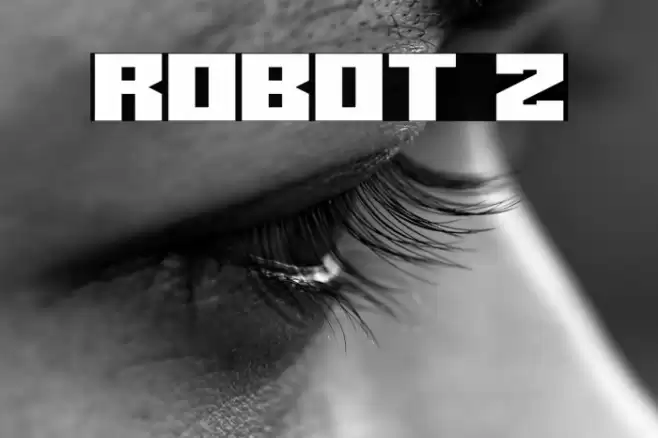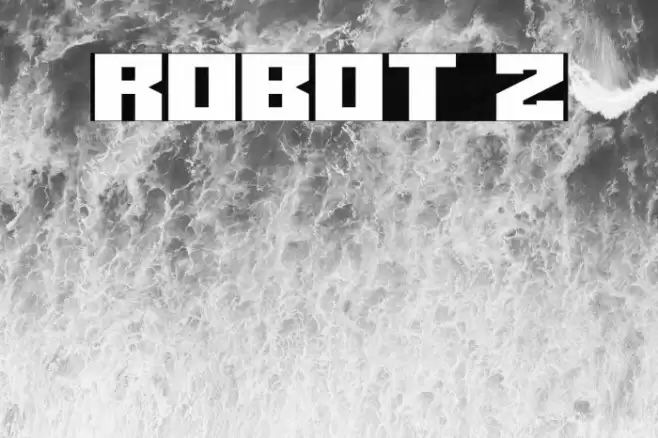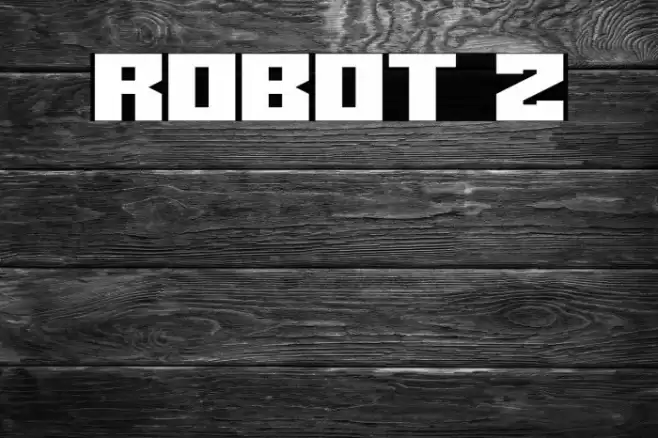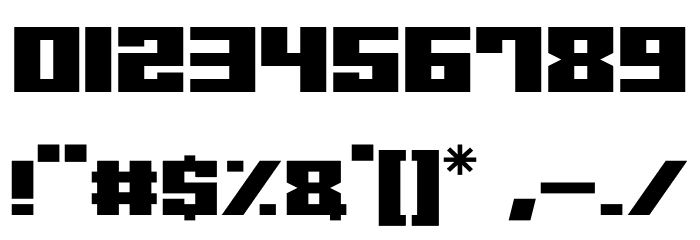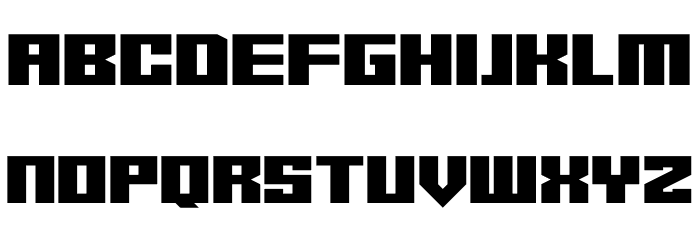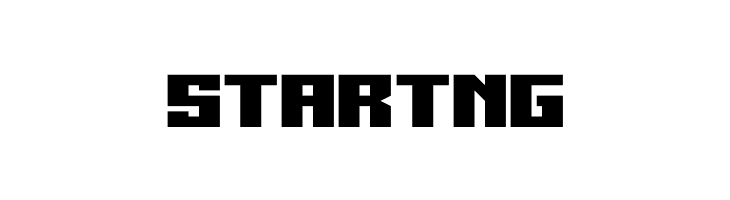
Robot Z Font
Robot Z Description
This font features a bold, geometric design with a futuristic and robotic aesthetic. The characters are blocky and angular, with sharp edges and a uniform thickness throughout. The uppercase and lowercase letters maintain a consistent style, emphasizing a strong, industrial look. The numerals and special characters follow the same design principles, ensuring a cohesive appearance across all glyphs. The font's distinct style makes it ideal for projects that require a modern, tech-inspired feel.
A bold, geometric font with a futuristic, robotic aesthetic from Regular fonts.
- Proposed Projects: Ideal for technology branding, video game titles, sci-fi movie posters, and digital interfaces.